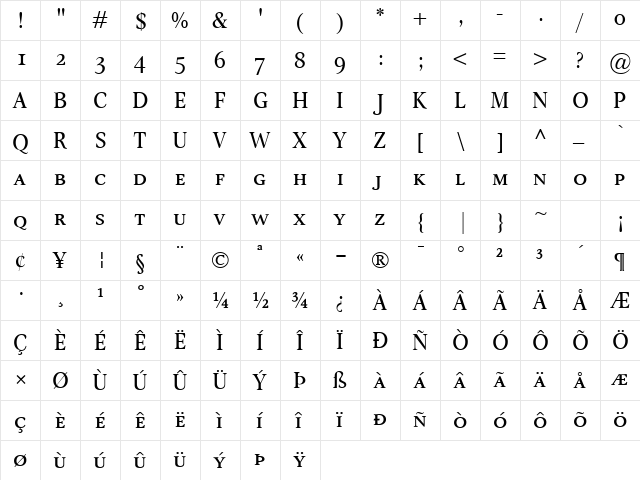
Omnibus SmallCaps Regular
Design Context for Omnibus SmallCaps Typeface
Omnibus SmallCaps offers clean, dependable letterforms without strong stylistic allegiance, making it a practical choice for designers who need flexibility.